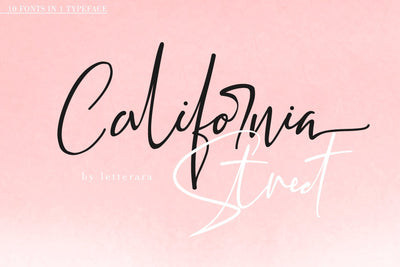
CALIFORNIA STREET (10 STYLES IN 1 TYPEFACE)
California Street is the perfect handwritten font: Sweet, innocent, light and charming, this one-of-a-kind typeface will add a unique charm to any design project!
California Street font was created to look as close to a natural handwritten script as possible by including 64 ligatures. With built in Opentype features, this script comes to life as if you are writing it yourself. You can see it in the picture shown.
A wide range of swashes (a-z) and alternates (A-Z, a-z) are included so that you can give your logo or name a custom, hand-calligraphy look.
This font is available in 10 fonts in 1 typefaces : Thin, Light, Regular, Semi Bold, Bold, Thin Italic, Light Italic, Semi Bold Italic, Bold Italic